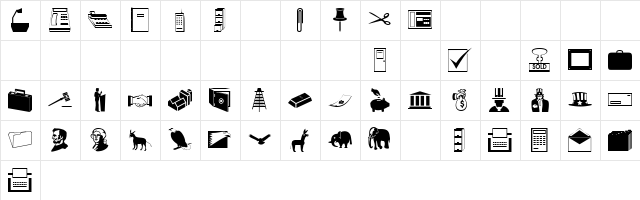
Carr Government Regular Font Preview
Carr Government Regular
Design Context for Carr Government Typeface
Carr Government takes a measured approach to typography — its balanced proportions and neutral character make it a reliable workhorse for both digital and print work.